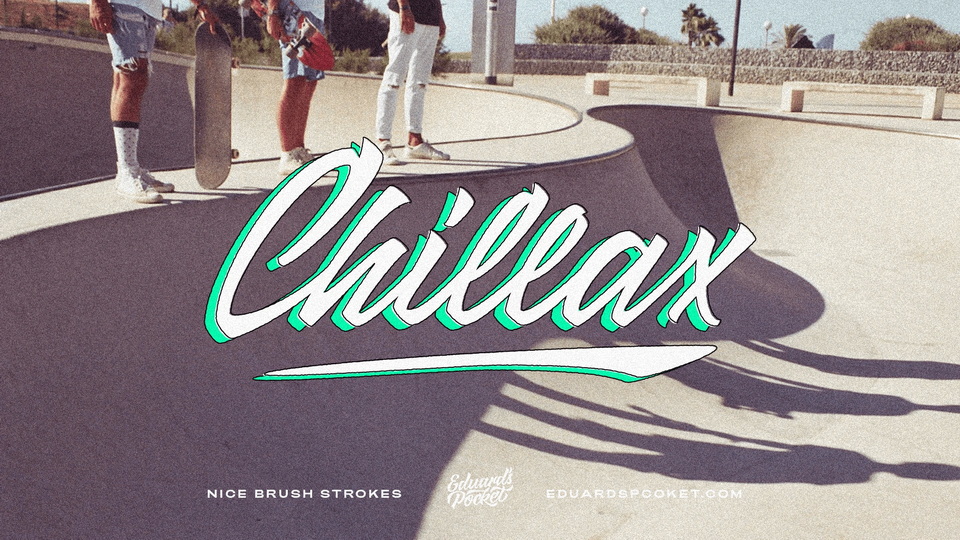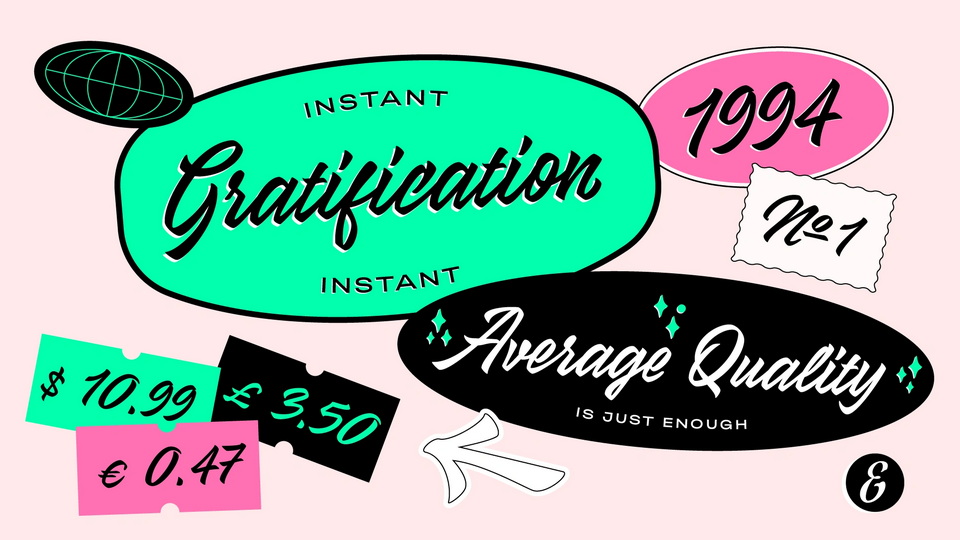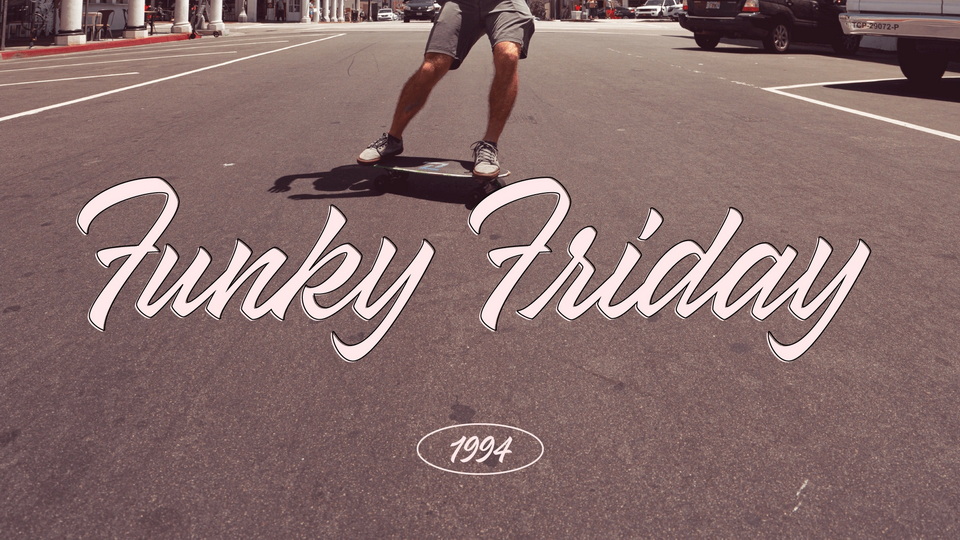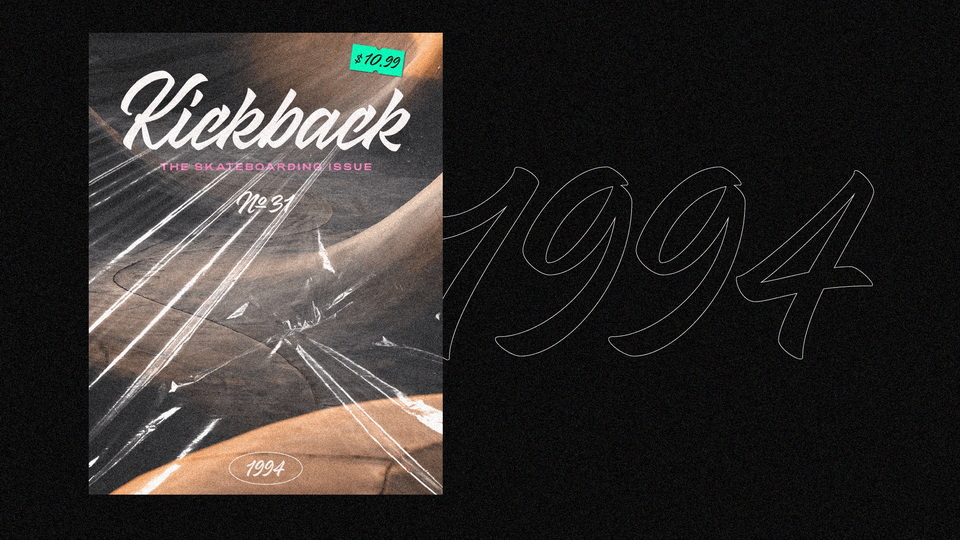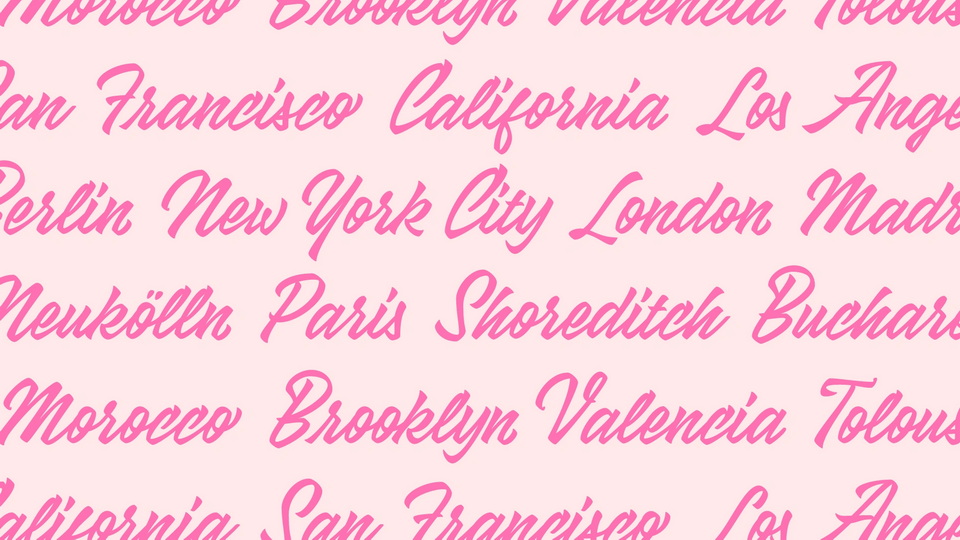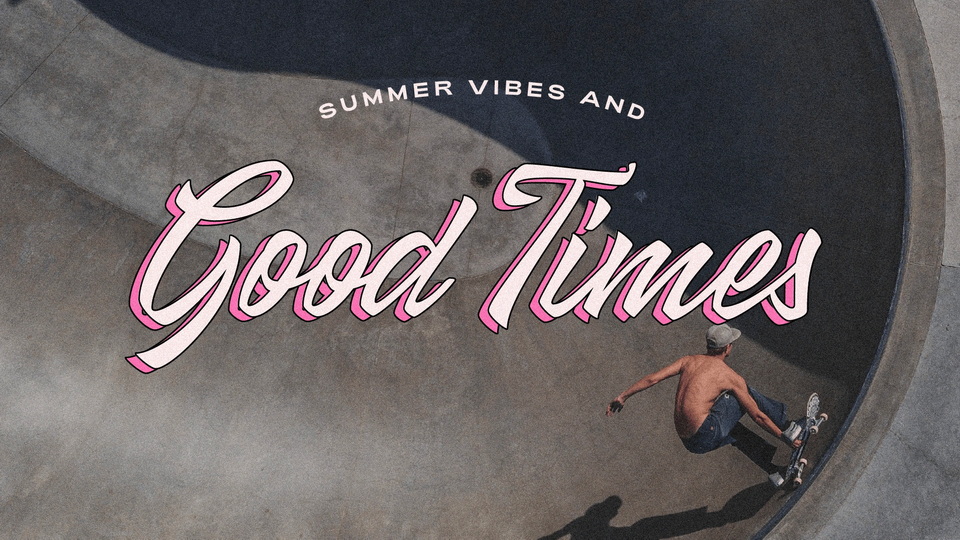
GoodHood is a quirky brush script with distinctive details that make it a perfect fit for logos and headlines. It brings back the good old vibes of the ’90s with retro signs influence and a subtle graffiti twist.
The font includes open type features such as ligatures and stylistic alternates. It also has multilingual support for English, German and Romanian.